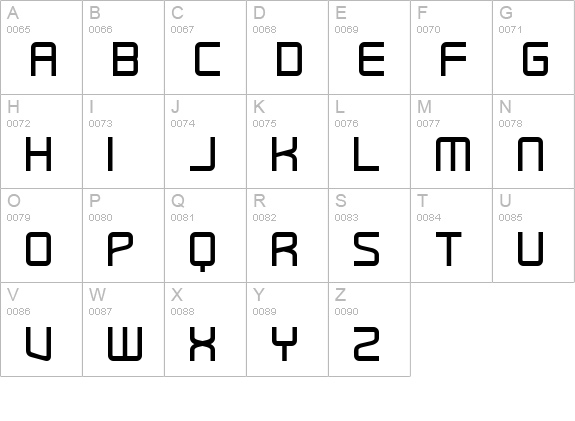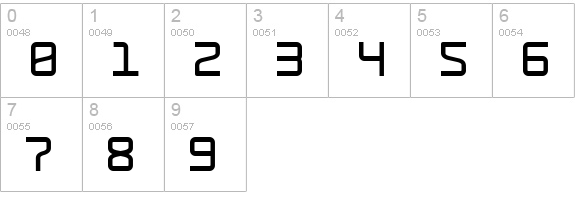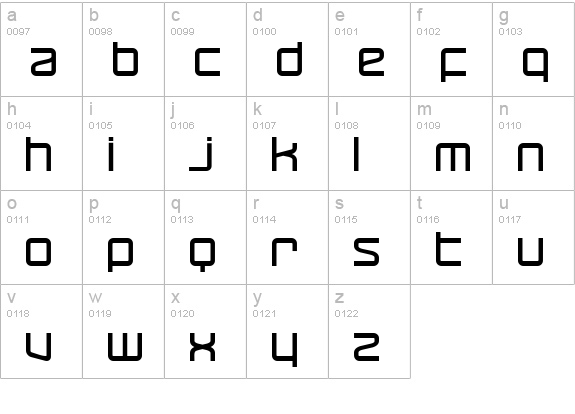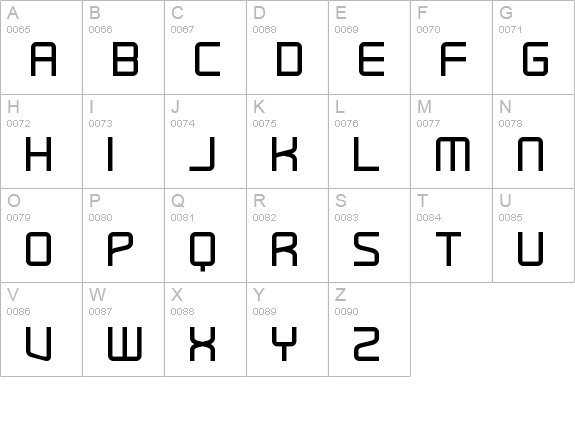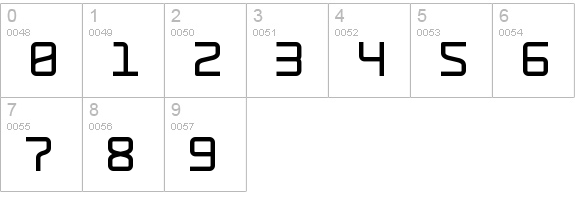
Introducing the dynamic and electrifying RaveParty Poster font - a bold and modern typeface designed to make your party promotions pop! This eye-catching font is perfect for creating high-energy posters, flyers, and invitations for your next rave or dance event. With its stylish and vibrant design, RaveParty Poster font is sure to capture the attention of your audience and set the tone for an unforgettable party experience. Best of all, this electrifying font is available for free download at FontsMarket.com. So go ahead and unleash your creativity with RaveParty Poster font - the ultimate tool for creating stunning and impactful designs for your next rave party!